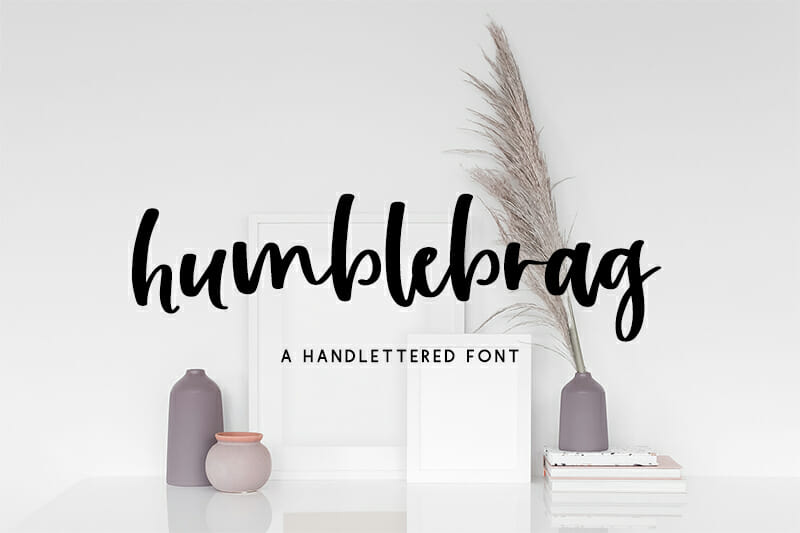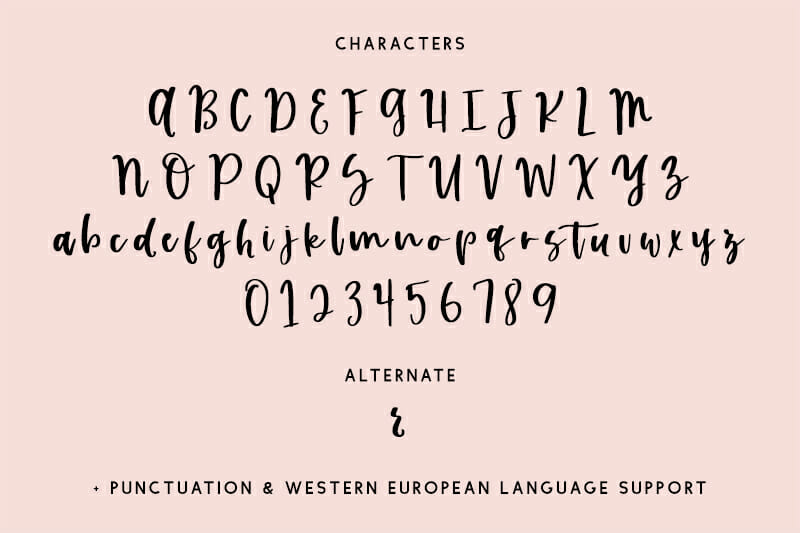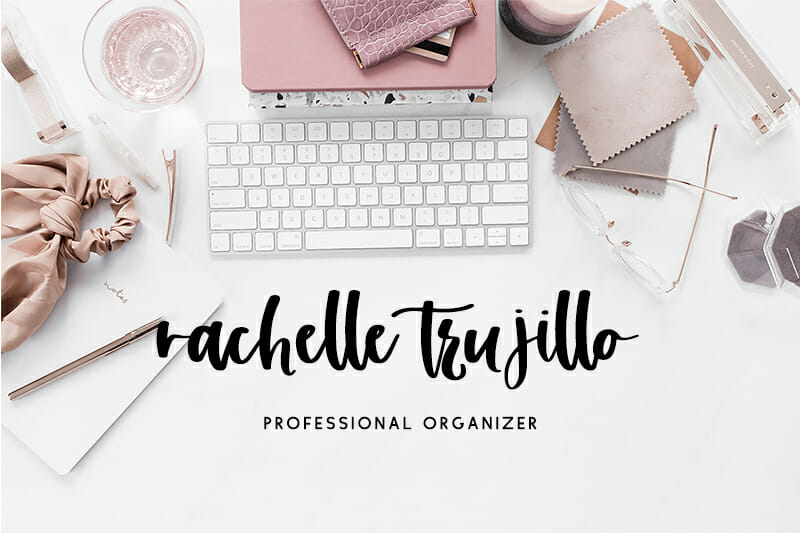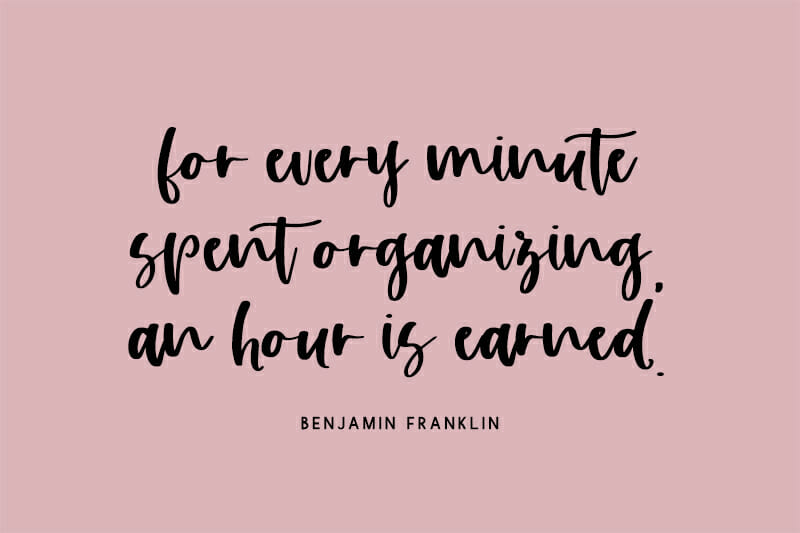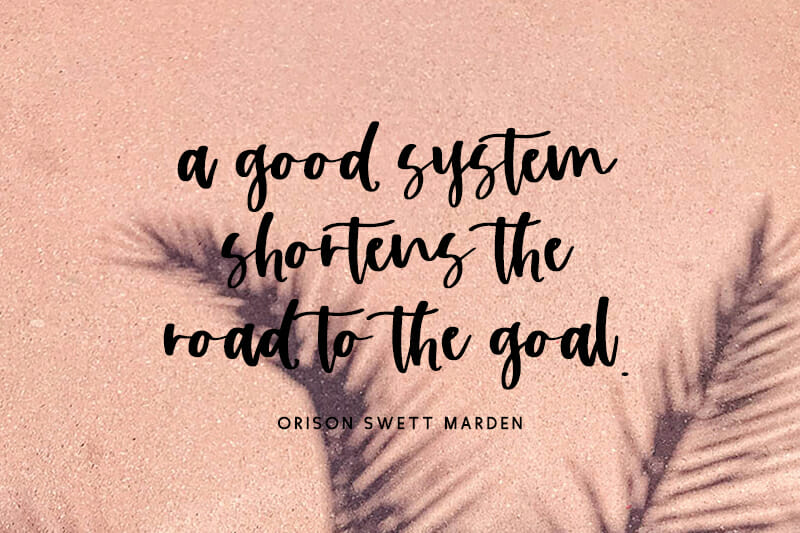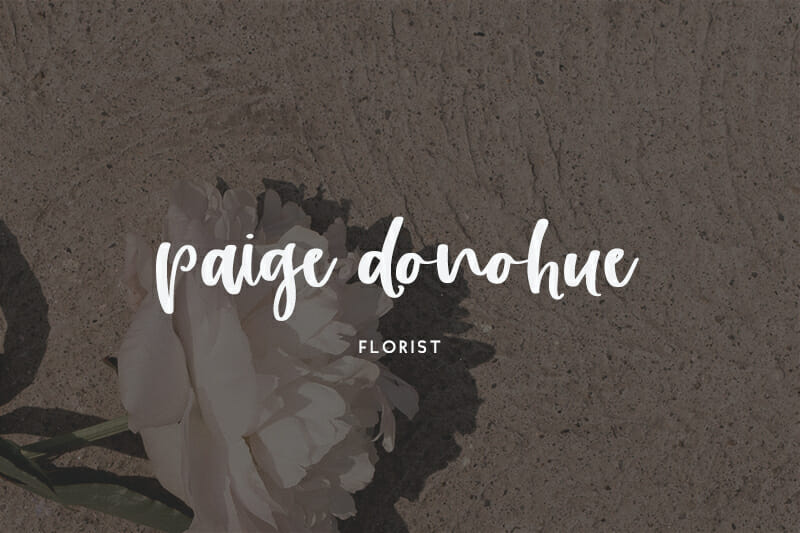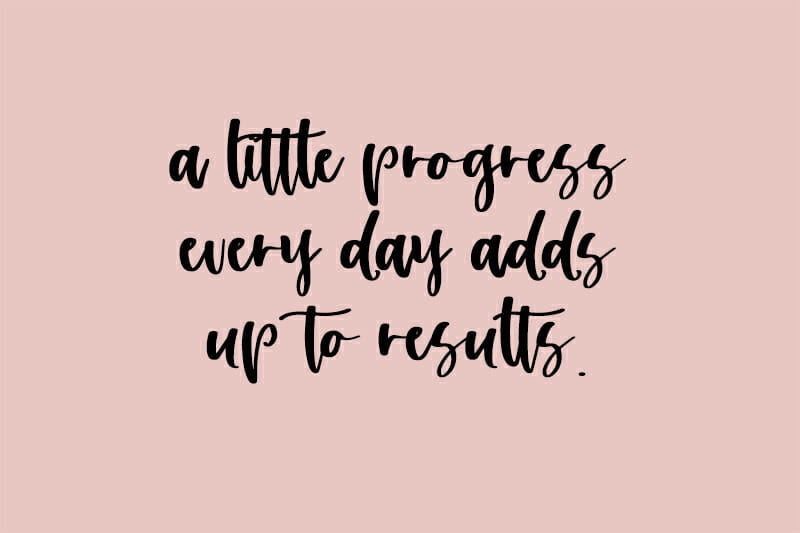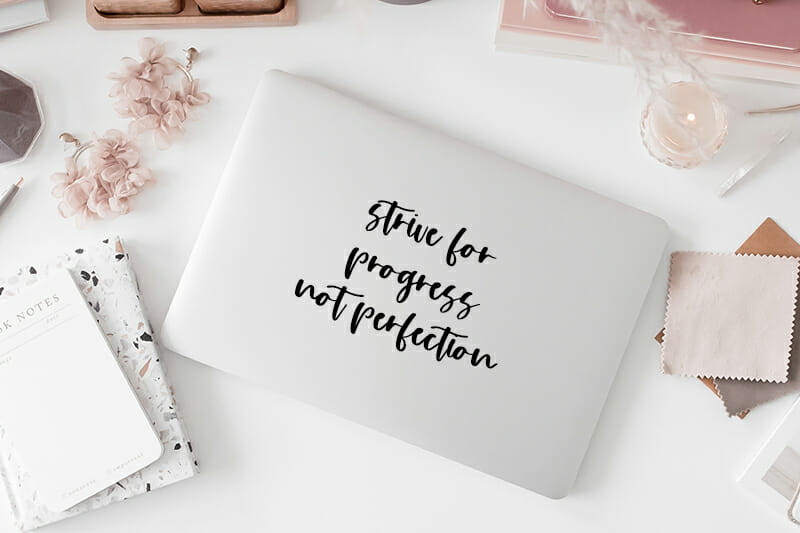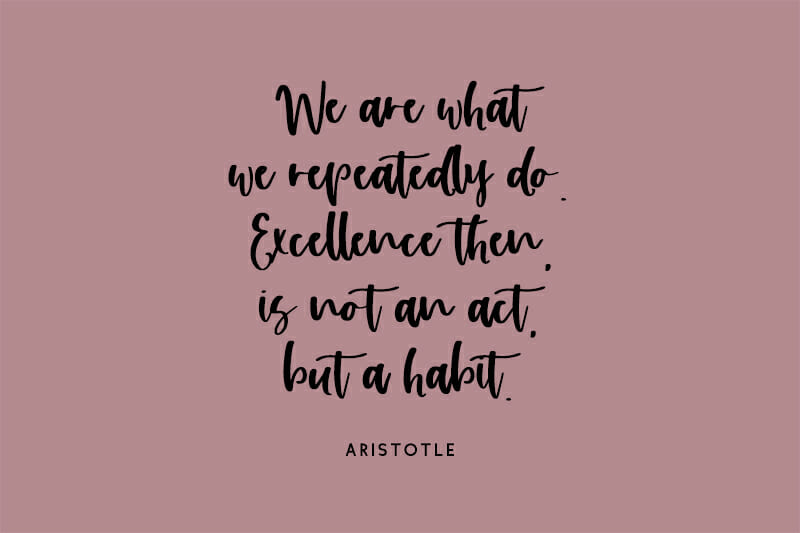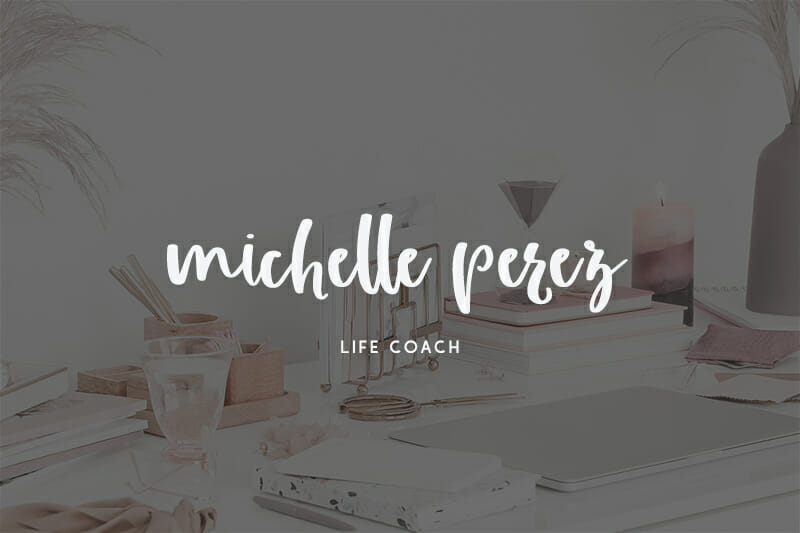
Humblebrag Script
Introducing Humblebrag Script, a playful handwritten font. Humblebrag has clean edges for vinyl cutting, and a carefree style for a variety of projects.
Humblebrag Script is best for:
– crafting with your Cricut or Silhouette machine, as it features super smooth lines for an easy cut
– logos + branding
– website design + website accents – think travel blogs, fashion blogs, & more
– clean print design, like magazines + flyers
– header elements that need handwritten touch
– quote graphics for social media
– 1 alternate character – r